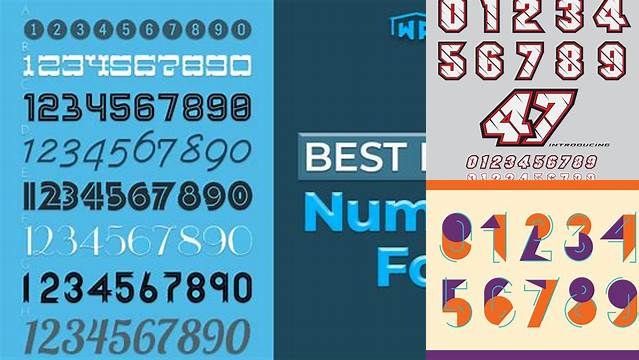
Number Font Design: Free Downloads For Your Projects
Hey guys! Are you on the hunt for the perfect number font design? Look no further! Whether you're crafting invitations, designing websites, or creating eye-catching posters, the right number font can make all the difference. And the best part? You can find amazing options for free download. This article is your ultimate guide to finding, selecting, and using the best number fonts out there. Let's dive in!
1. The Importance of Number Fonts in Design
Number font design is often an overlooked aspect of graphic design, but it plays a crucial role in how effectively your message is conveyed. Imagine a sleek, modern website using a clunky, outdated number font – it just wouldn't work, right? The right font can enhance readability, convey the right tone, and ensure consistency with your overall branding. When you're working on anything from financial reports to birthday invitations, selecting a suitable number font can elevate the entire design. A well-chosen number font can make data more accessible, add a touch of elegance, or inject some fun into your project. Think about the impact a clean, sans-serif number font has on a corporate report versus a whimsical, hand-drawn number font on a children's party flyer. The possibilities are endless, and paying attention to this detail can significantly enhance your designs. Ultimately, the goal is to ensure that the numbers are not just visible but also complement the overall aesthetic and purpose of the design. It’s about finding that perfect balance between functionality and visual appeal. Remember, even the smallest details can have a big impact, and the right number font design is no exception. So, take the time to explore different options and see how they can transform your work.
3. Different Styles of Number Fonts
When it comes to number font design, the options are virtually limitless. From classic serif fonts like Times New Roman (yes, even numbers have their own version!) to modern sans-serif fonts like Arial or Helvetica, there’s a style to suit every project. Serif fonts often convey a sense of tradition and authority, making them ideal for formal documents or projects that require a touch of elegance. Sans-serif fonts, on the other hand, tend to be more modern and minimalist, perfect for clean, contemporary designs. Then there are script fonts, which mimic handwriting and can add a personal, artistic flair to your work. These are great for invitations or designs that need a touch of personality. Display fonts are designed to grab attention and come in a wide variety of styles, from bold and blocky to whimsical and decorative. These are ideal for headlines, posters, and anything that needs to stand out. Within each of these categories, you'll find countless variations in weight, width, and style. Experimenting with different styles is key to finding the perfect number font design for your project. Don't be afraid to mix and match different font styles to create visual interest, but always ensure that your choices are cohesive and complement the overall design.
4. How to Choose the Right Number Font
Choosing the right number font design can feel overwhelming with so many options available, but here’s a simple guide to help you narrow it down. First, consider the context of your project. What is the overall tone and message you want to convey? A formal invitation calls for a different font than a fun, casual flyer. Next, think about readability. Is the font easy to read at different sizes? A decorative font might look great in a headline but be illegible in smaller text. Ensure that the numbers are clear and distinct, especially if they are part of important data or information. Another important factor is consistency. Choose a font that complements your existing branding and design elements. Using too many different fonts can make your design look cluttered and unprofessional. It's often best to stick to one or two fonts for the entire project. Finally, don't be afraid to experiment. Try out different fonts and see how they look in your design. Use mockups to get a sense of the overall impact. By considering these factors, you can confidently choose the perfect number font design that enhances your project and effectively communicates your message.
5. Tips for Using Number Fonts Effectively
Using number font design effectively is all about balance and attention to detail. One of the most important tips is to consider the spacing and kerning of the numbers. Kerning refers to the space between individual characters, and adjusting it can significantly improve readability. If the numbers are too close together, they can look cramped and difficult to read. If they are too far apart, they can appear disjointed. Most design software allows you to adjust kerning manually, so take the time to fine-tune it for optimal results. Another tip is to pay attention to the weight of the font. A font that is too light can be difficult to see, especially on a busy background. A font that is too heavy can look overwhelming. Choose a weight that is appropriate for the size and context of the numbers. Also, consider the color of the font. Make sure it contrasts well with the background to ensure readability. A dark font on a light background is generally the easiest to read, but you can also experiment with other color combinations to create visual interest. Finally, remember to use number font design consistently throughout your project. This will help create a cohesive and professional look. By following these tips, you can ensure that your number fonts are not only visually appealing but also functional and easy to read.